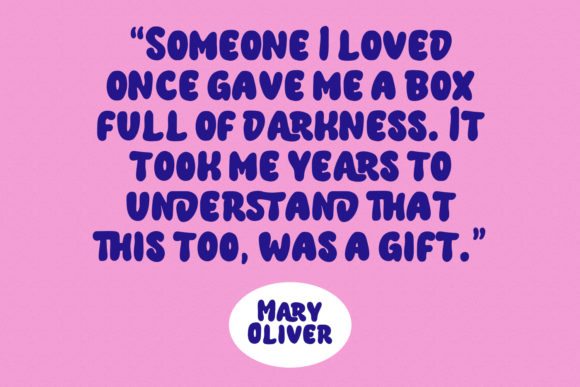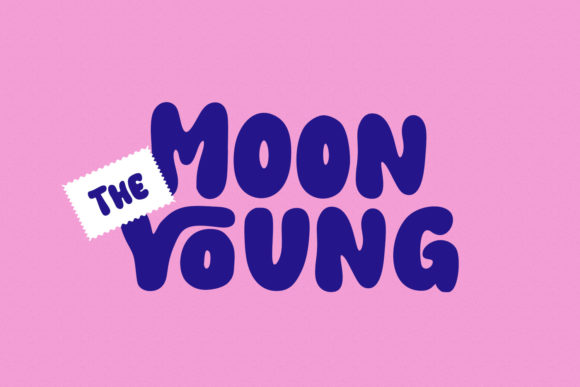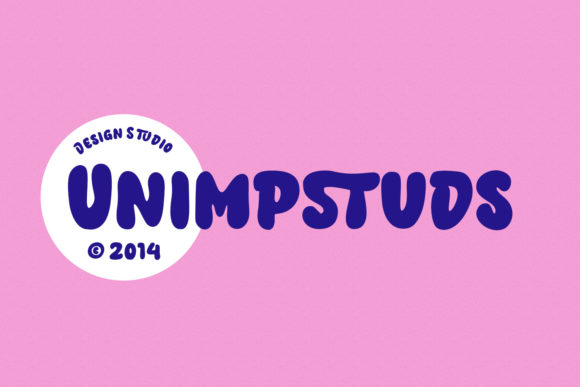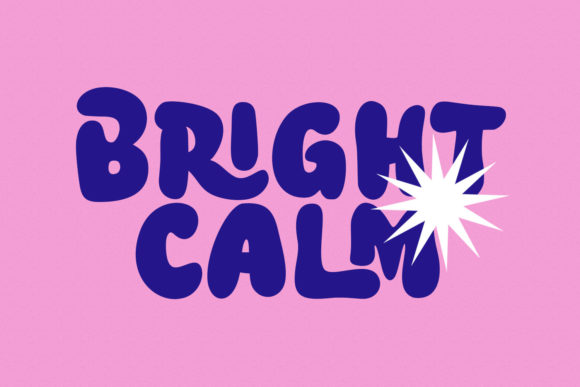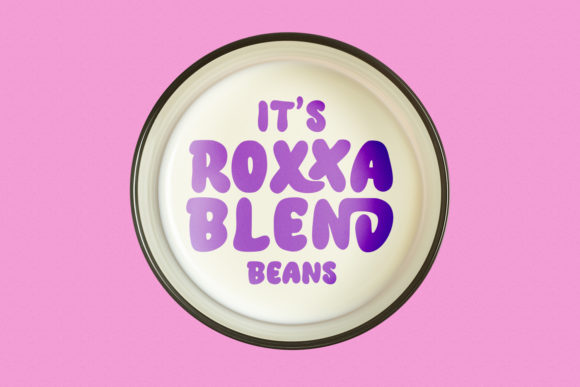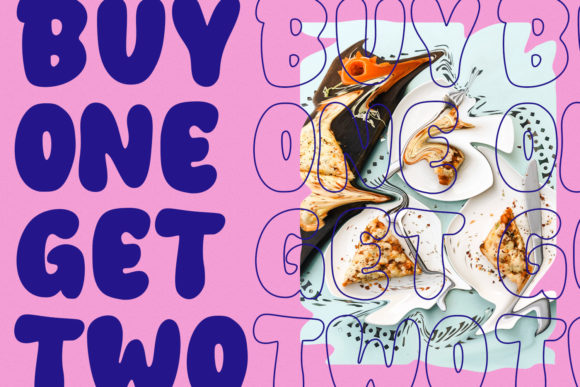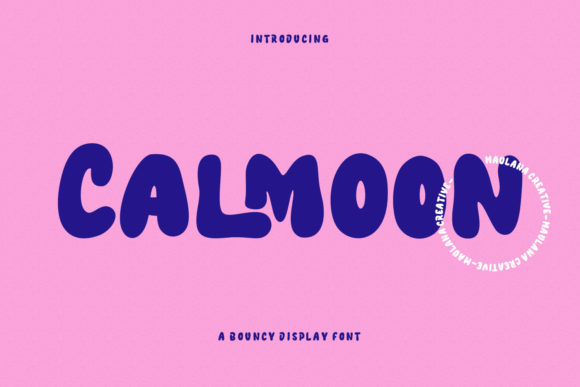
Introducing Calmoon Font: The Bouncy Handwritten Display Font for Creative Minds
Are you tired of using the same old fonts for your design projects? Look no further than Calmoon Font, a bouncy handwritten display font that’s sure to add a touch of fun and personality to your work. With its bold bulb stroke, fun character, and ligatures, Calmoon Font is the perfect choice for designers and crafters looking to make a statement.
What Makes Calmoon Font Special?
Calmoon Font is a unique and creative font that’s designed to help you take your design projects to the next level. Its bold bulb stroke gives it a distinctive look that’s both eye-catching and engaging. The font also features fun characters and ligatures, which add a touch of whimsy and playfulness to your text.
One of the standout features of Calmoon Font is its versatility. It’s perfect for a wide range of design projects, from logo design and social media graphics to movie titles, book titles, and even long text letters. The font is also great for use as a secondary text font, paired with sans or serif fonts to add visual interest and depth to your design.
Uses for Calmoon Font
So, what can you use Calmoon Font for? The possibilities are endless! Here are just a few ideas to get you started:
- Logo Design: Calmoon Font is perfect for creating eye-catching logos that stand out from the crowd. Its bold bulb stroke and fun character make it a great choice for businesses and brands looking to make a statement.
- Social Media Graphics: Add a touch of personality to your social media graphics with Calmoon Font. It’s perfect for creating engaging and shareable content that will help you connect with your audience.
- Movie Titles: Calmoon Font is a great choice for movie titles and credits. Its bold and eye-catching design is sure to grab the attention of your audience and add a touch of excitement to your film.
- Book Titles: If you’re a book lover or a writer, Calmoon Font is a great choice for your book titles and covers. Its fun and playful design is sure to help your book stand out on the shelves.
- Long Text Letters: Calmoon Font is also great for use in long text letters and paragraphs. Its clear and readable design makes it perfect for communicating your message, while its fun character adds a touch of personality to your text.
Why Choose Calmoon Font?
So, why should you choose Calmoon Font for your design projects? Here are just a few reasons:
- Unique and Creative: Calmoon Font is a unique and creative font that’s sure to help you stand out from the crowd.
- Versatile: Calmoon Font is perfect for a wide range of design projects, from logo design and social media graphics to movie titles and book covers.
- Easy to Read: Despite its bold and playful design, Calmoon Font is easy to read and clear to understand.
- Fun and Playful: Calmoon Font adds a touch of fun and playfulness to your design projects, making them more engaging and shareable.
Tips for Using Calmoon Font
Here are a few tips for getting the most out of Calmoon Font:
- Use it as a Headline Font: Calmoon Font is perfect for use as a headline font, adding a touch of personality and excitement to your design.
- Pair it with Sans or Serif Fonts: Calmoon Font pairs well with sans or serif fonts, adding visual interest and depth to your design.
- Experiment with Colors: Calmoon Font looks great in a wide range of colors, so don’t be afraid to experiment and find the perfect hue for your design.
- Use it to Add Emphasis: Calmoon Font is perfect for adding emphasis to your text, making it a great choice for highlighting important information or adding a touch of drama to your design.
In conclusion, Calmoon Font is a bouncy handwritten display font that’s perfect for designers and crafters looking to add a touch of fun and personality to their design projects. With its bold bulb stroke, fun character, and ligatures, Calmoon Font is sure to make a statement and help you stand out from the crowd. So why wait? Download Calmoon Font today and start creating stunning designs that will leave a lasting impression on your audience!